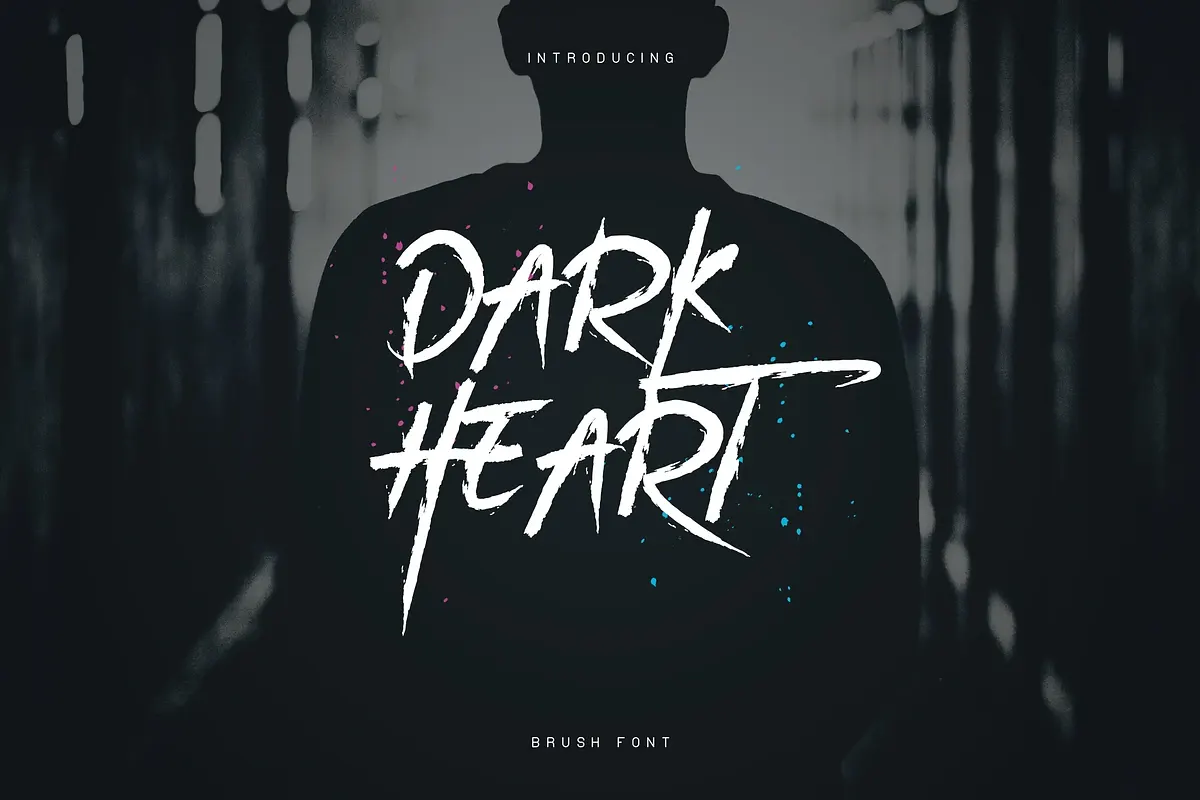
Unleash your wild side with Dark Heart Brush Font Free Download, a bold and edgy brush typeface designed to bring raw energy to your creative projects. Whether you're designing music posters, t-shirts, social media graphics, or edgy brand logos, this font delivers fierce personality and attitude with every stroke.
With its hand-drawn, paintbrush style and authentic texture, Dark Heart gives your text a gritty, rebellious vibe. The font comes with a full character set, including uppercase, lowercase, numbers, punctuation, and multilingual support. And don’t forget the extras — custom swashes, icons, or textured elements that take your designs to the next level.
If your design needs a heartbeat that thumps with passion and edge, Dark Heart is your new best friend. Download it today and let your visuals scream with style!